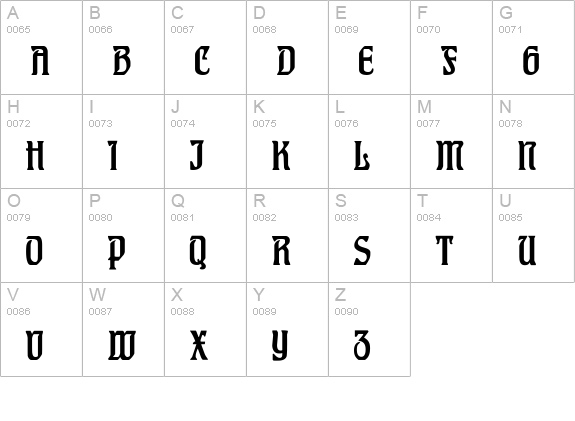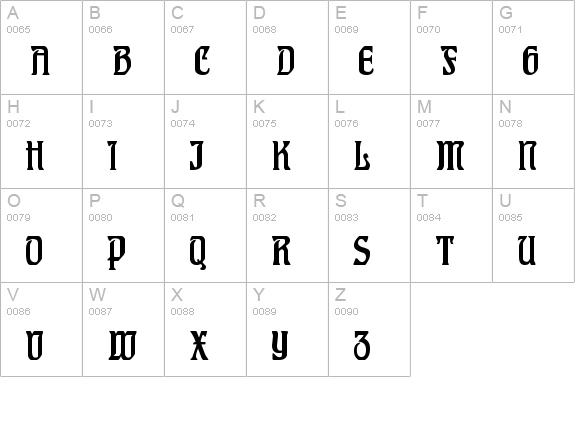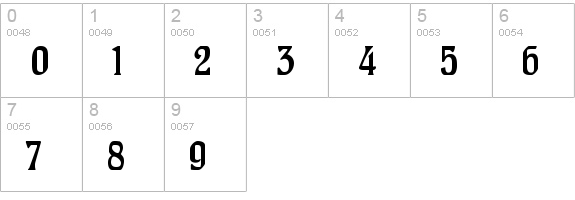
Hohenzollern Font Details
Hohenzollern font is a stunning typeface that exudes elegance and sophistication. Its timeless appeal makes it a perfect choice for a wide range of design projects, from branding and logo design to editorial layouts and wedding invitations. With its clean and crisp lines, Hohenzollern font commands attention and adds a touch of class to any design. Its carefully crafted letterforms are inspired by traditional calligraphy, giving it a sense of grace and fluidity. What makes Hohenzollern font even more remarkable is that it is available to download for free at FontsMarket.com. This means that designers and creatives can access this exceptional font without any cost, making it even more accessible and versatile. Whether you are a professional designer or a hobbyist, Hohenzollern font offers a wealth of possibilities. Its wide range of weights and styles allows for endless combinations, ensuring that you can create unique and eye-catching designs that stand out from the crowd. From bold headlines to elegant body text, Hohenzollern font delivers exceptional legibility and readability, making it a reliable choice for both print and digital projects. Its versatility is further enhanced by its extensive language support, enabling designers to seamlessly incorporate Hohenzollern font into projects with diverse linguistic requirements. The attention to detail and craftsmanship that went into creating Hohenzollern font is evident in every curve and stroke. Its refined and sophisticated aesthetic is sure to elevate any design, adding a touch of timeless beauty. Whether you are designing a logo for a luxury brand, crafting an invitation for a black-tie event, or creating an editorial layout for a high-end magazine, Hohenzollern font is the perfect choice. And with its availability as a free download on FontsMarket.com, there's no reason not to add this exquisite typeface to your design arsenal.